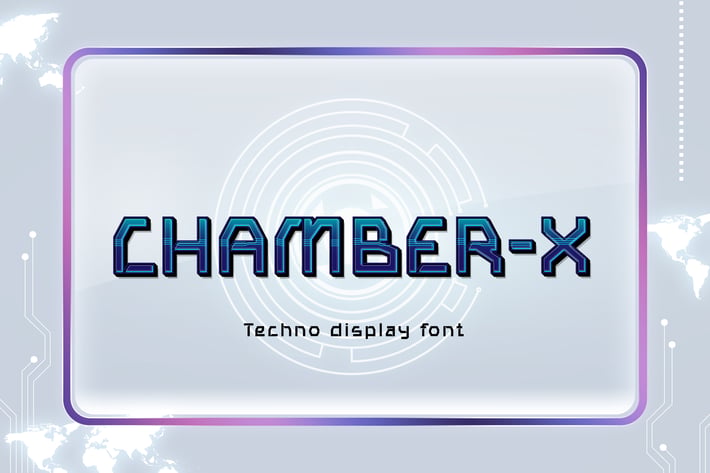
CHAMBER X - Techno Display Font
Robotic, sophisticated tech, outer space, and all about future technology. Chamber X will give you the edge of it.
Suit perfectly for future and science segmented magazine, poster, movie title, music poster, youtube covers, youtube thumbnails, social media page covers and so on...